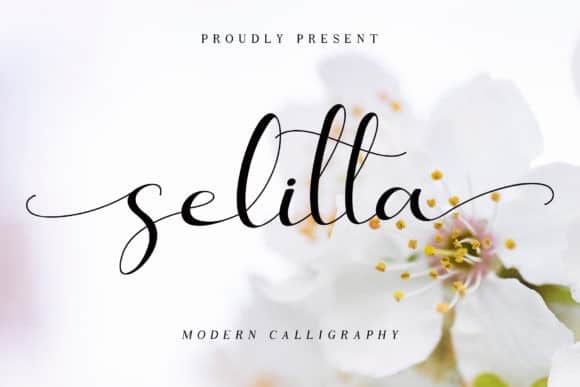
Selitta Calligraphy Font
Selitta Font is a Beautiful calligraphy font carefully created with a touch of romantic. This font has a multitude of natural looking ligatures in its OpenType features – making the font look as close to natural handwriting as possible. This collection of scripts is perfect for personal branding.
Selitta Font is perfect for many different projects such as logos & branding, invitation, stationery, wedding designs, social media posts, advertisements, product packaging, product designs, label, photography, watermark, special events or anything.